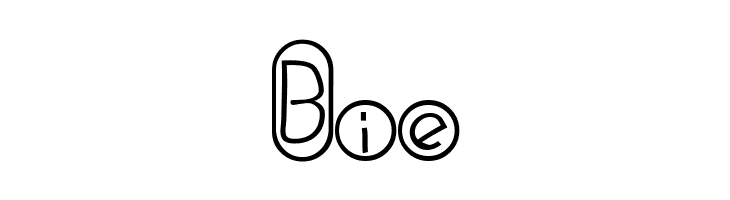
A playful, bold font with characters enclosed in circles, offering a unique and cohesive look.
A decorative font with characters enclosed in ovals, offering a bold and playful style.
A playful, bubble-like font with characters enclosed in ovals, perfect for creative projects.